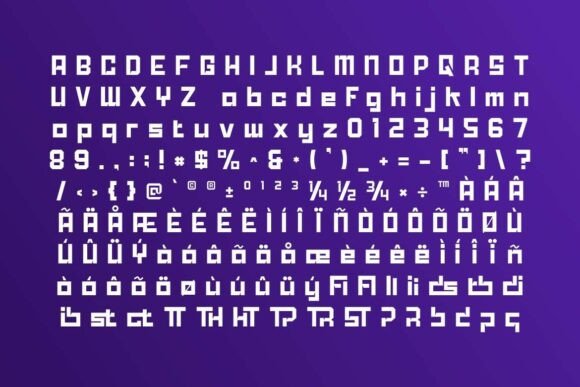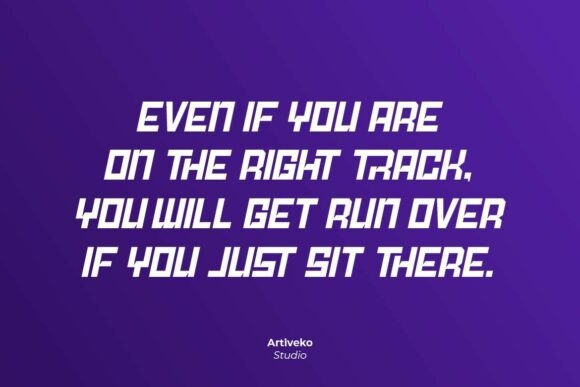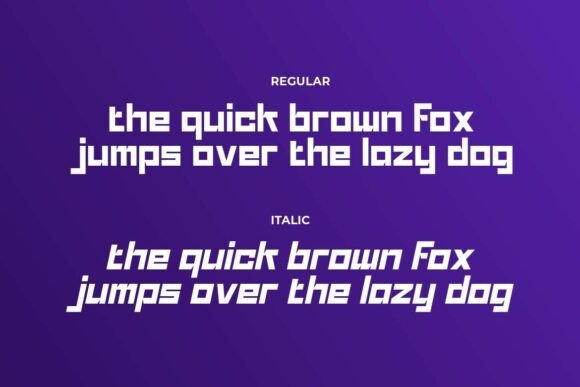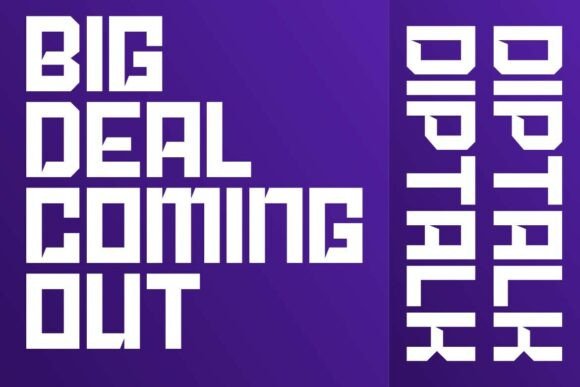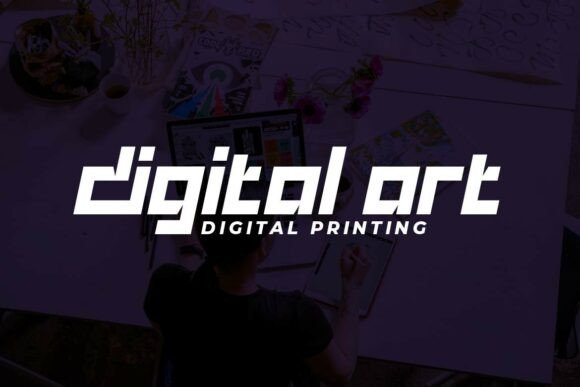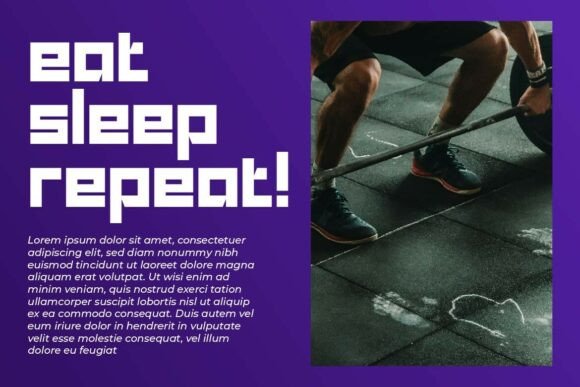
Diptalk Font: Elevate Your Brand Identity with a Sleek and Contemporary Sans Serif
In the world of design, a font can make or break a brand’s identity. A well-crafted font can elevate a brand’s visual appeal, convey its message, and leave a lasting impression on its audience. If you’re a designer, craftsperson, or brand owner looking for a font that embodies modernity and professionalism, look no further than Diptalk Font. In this article, we’ll explore the features, benefits, and uses of Diptalk, and why it’s the perfect choice for impactful logo design and strong brand identities.
Introducing Diptalk Font
Diptalk is a sleek and contemporary sans serif font, carefully crafted to deliver a professional and modern look. Its clean lines, geometric structure, and balanced proportions make it an ideal choice for designers and craftspersons seeking to create a strong brand identity. Whether you’re designing a logo, brochure, or website, Diptalk ensures your brand stands out in any medium.
Key Features of Diptalk Font
- Clean Lines: Diptalk’s clean lines give it a crisp and modern appearance, perfect for brands that want to convey a sense of sophistication and elegance.
- Geometric Structure: The font’s geometric structure provides a sense of stability and balance, making it ideal for logos, headings, and titles.
- Balanced Proportions: Diptalk’s balanced proportions ensure that each letter is harmoniously proportioned, creating a visually appealing and easy-to-read font.
- Sans Serif: As a sans serif font, Diptalk exudes a sense of modernity and minimalism, making it perfect for brands that want to appear contemporary and forward-thinking.
Benefits of Using Diptalk Font
So, why choose Diptalk Font for your design projects? Here are just a few benefits:
- Versatility: Diptalk is a versatile font that can be used for a wide range of design projects, from logos and branding to headings, titles, and body text.
- Legibility: The font’s clean lines and balanced proportions ensure excellent legibility, even at small sizes.
- Uniqueness: Diptalk’s unique geometric structure and modern aesthetic set it apart from other sans serif fonts, giving your brand a distinctive look.
- Professionalism: Diptalk’s professional and modern appearance makes it perfect for businesses and organizations that want to convey a sense of expertise and authority.
Who Can Benefit from Diptalk Font?
Diptalk Font is an excellent choice for a wide range of designers, craftspersons, and brand owners, including:
- Logo Designers: Diptalk’s clean lines and geometric structure make it perfect for creating impactful logos that stand out.
- Brand Identity Designers: The font’s modern aesthetic and balanced proportions ensure a strong brand identity that resonates with audiences.
- Craftspersons: Diptalk’s versatility and legibility make it an excellent choice for craftspersons seeking to create visually appealing branding and marketing materials.
- Small Business Owners: Diptalk’s professional appearance and modern aesthetic make it perfect for small businesses seeking to establish a strong brand identity.
In conclusion, Diptalk Font is a sleek and contemporary sans serif font that’s perfect for impactful logo design and strong brand identities. Its clean lines, geometric structure, and balanced proportions make it an ideal choice for designers, craftspersons, and brand owners seeking to create a professional and modern look. Whether you’re designing a logo, brochure, or website, Diptalk ensures your brand stands out in any medium. So why wait? Try Diptalk Font today and elevate your brand identity to new heights!